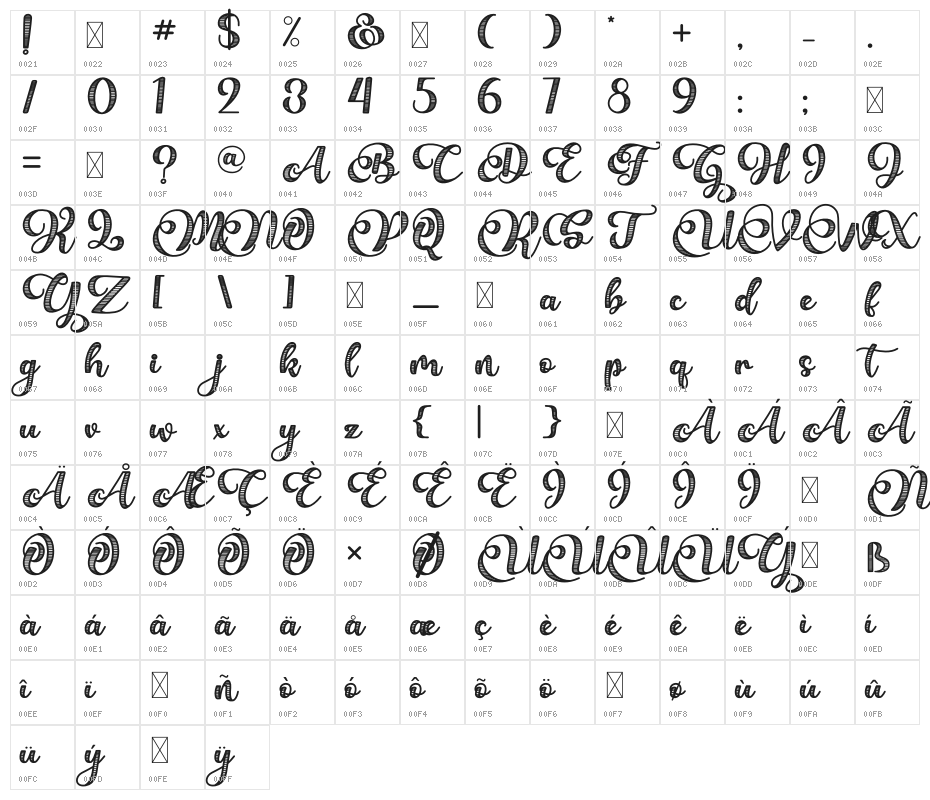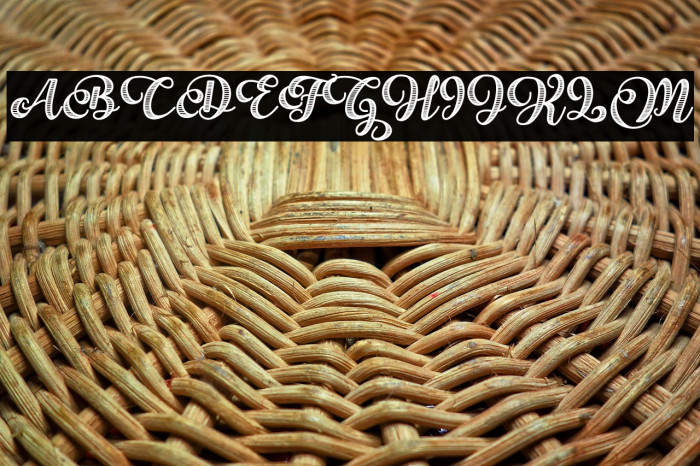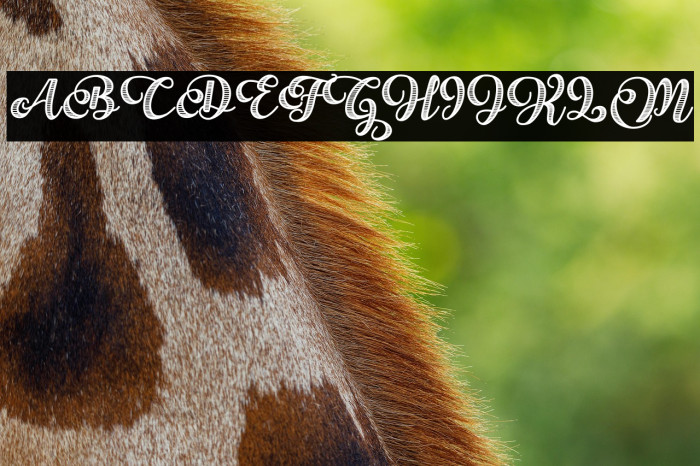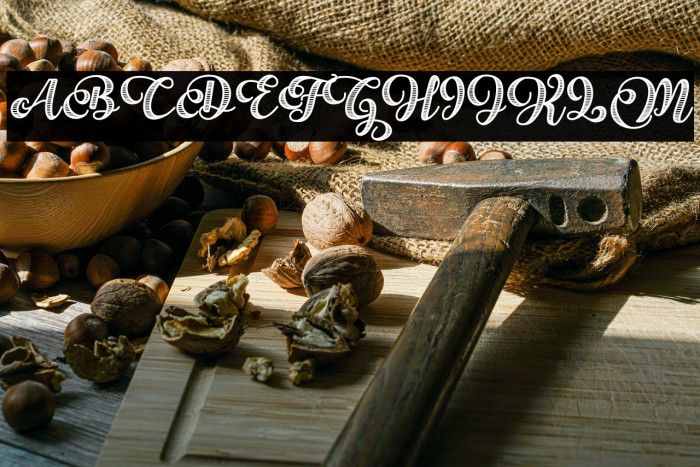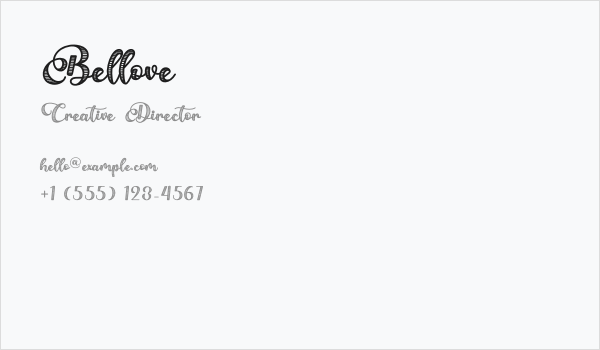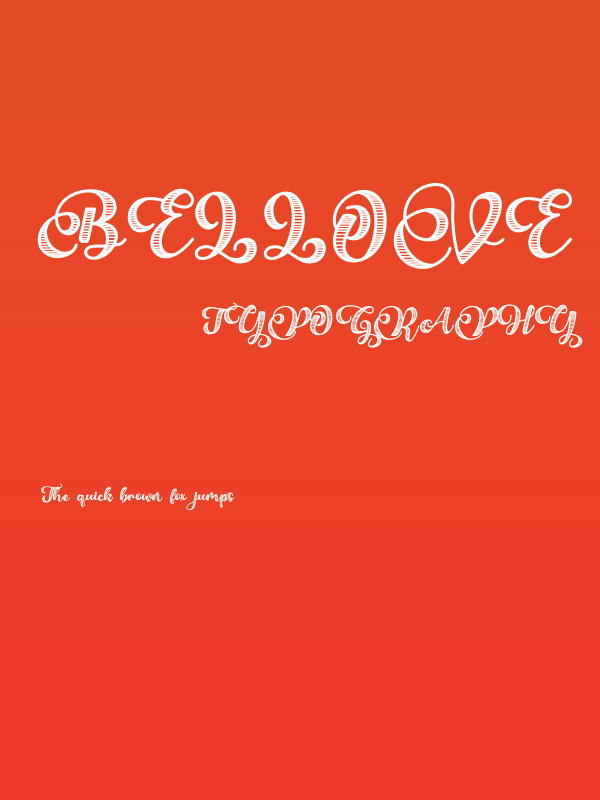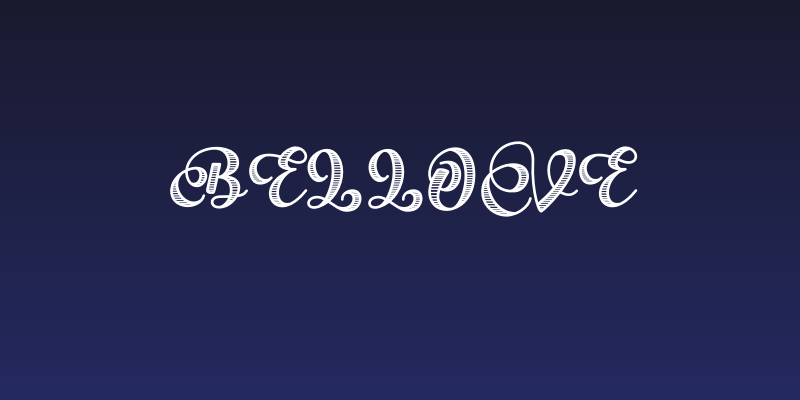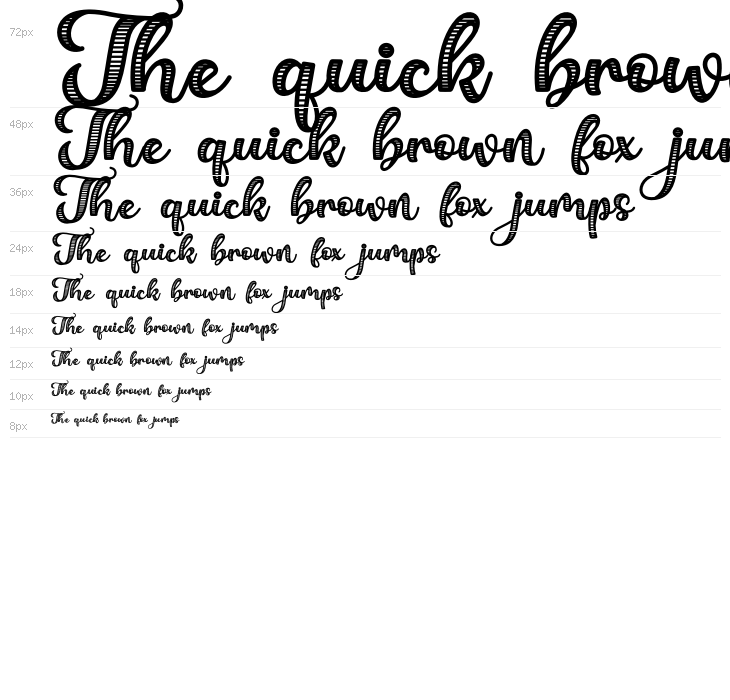
Bellove Font
This font features a decorative and elegant script style, characterized by its intricate line work and flowing curves. The uppercase letters are ornate, with a distinct slanted crosshatch pattern that adds texture and depth. The lowercase letters maintain a cohesive script style, with smooth, connected strokes that enhance readability while retaining a sophisticated appearance. The numerals and special characters follow the same decorative theme, ensuring consistency across all glyphs. This font exudes a sense of elegance and creativity, making it suitable for projects that require a touch of sophistication and flair.
| Proposed Projects | Ideal for wedding invitations, luxury branding, greeting cards, and artistic posters. |